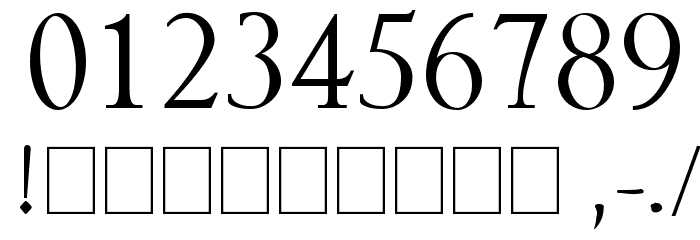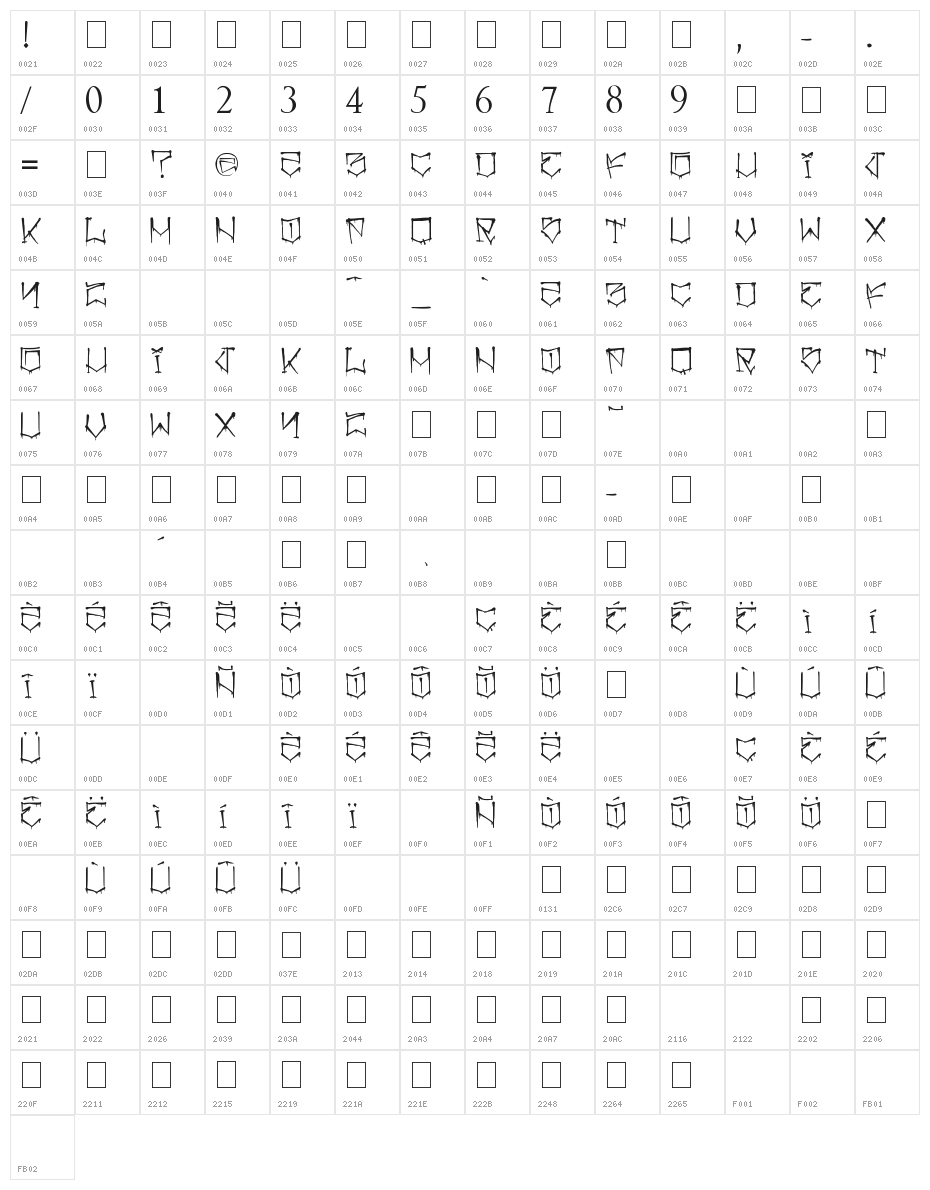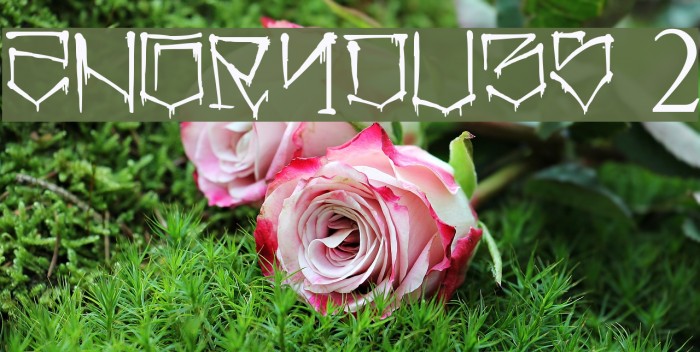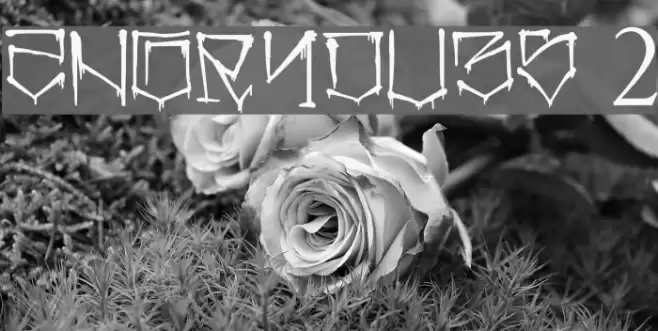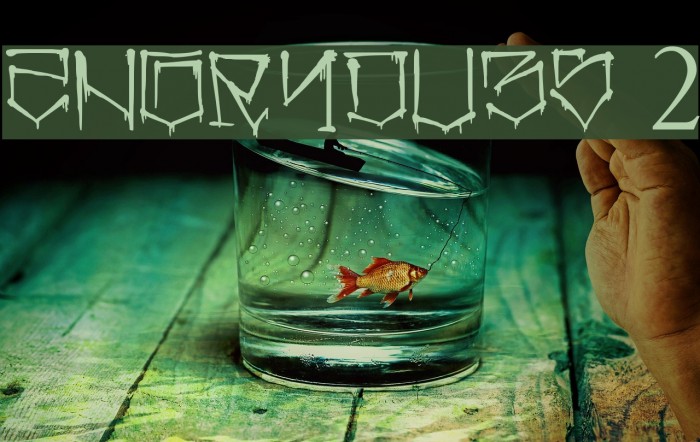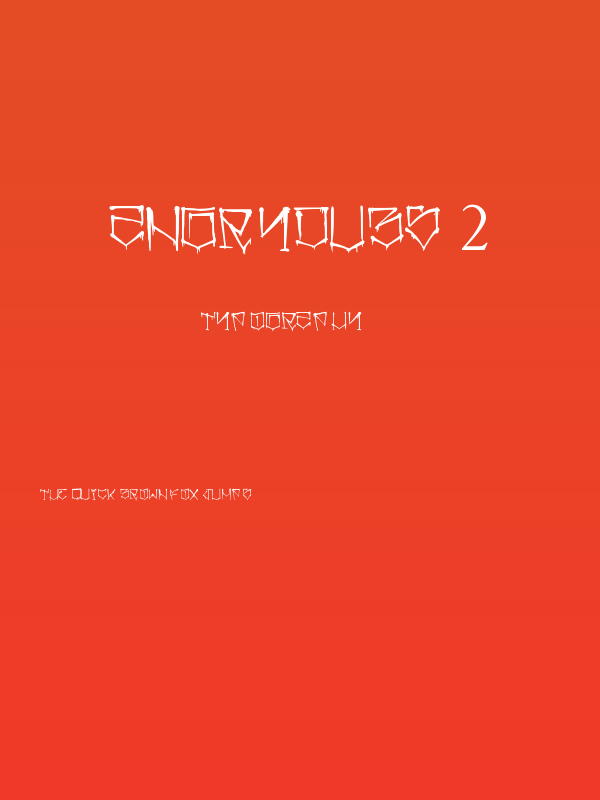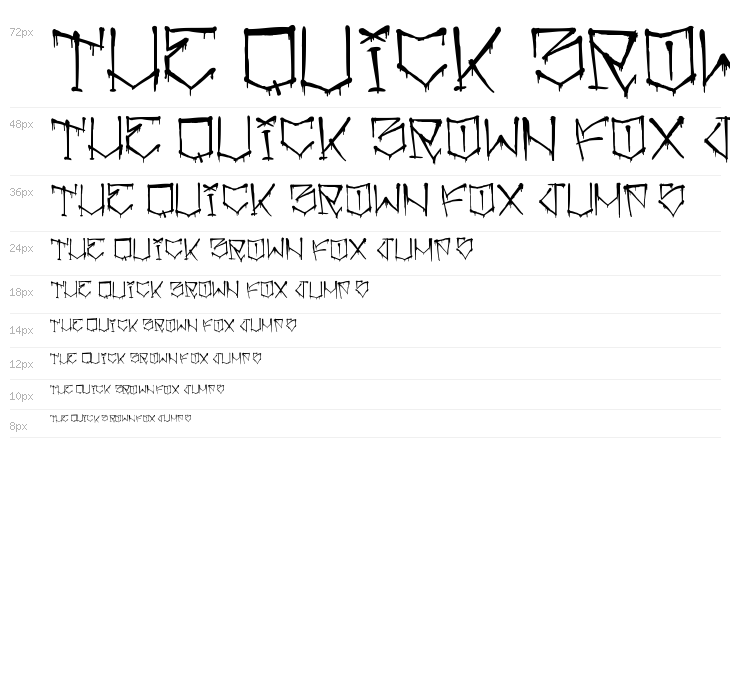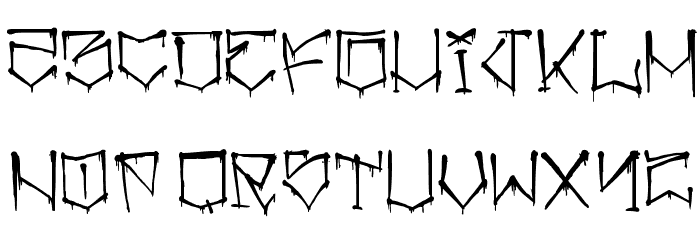
angrydubs 2 Font
angrydubs 2 Description
This font features a unique and edgy design, characterized by sharp, angular lines and a graffiti-like appearance. The uppercase letters are bold and striking, with a hand-drawn quality that gives them a rebellious and urban feel. The lowercase letters maintain the same style, ensuring consistency throughout the typeface. The numerals are more traditional in style, providing a stark contrast to the letters. Special characters are included, adding versatility to the font. Overall, this font is perfect for projects that require a bold, unconventional look.
| Overall Style | Modern, Urban |
| Proposed Projects | Ideal for street art designs, music album covers, urban-themed posters, and edgy branding projects. |